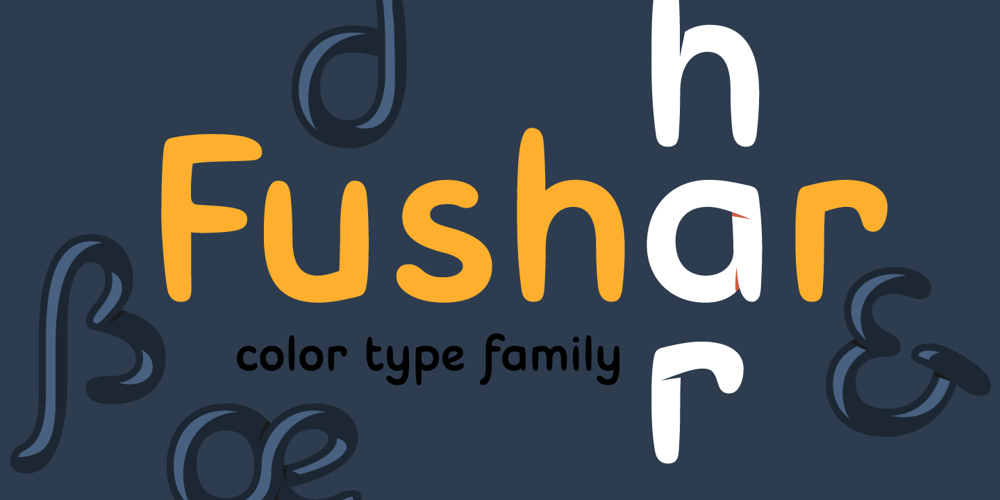
Fushar
Fushar font
Fushar Font Family was designed by Mikołaj Grabowski and published by Mikołaj Grabowski. Fushar contains 8 styles and family package options. Fushar is a bold comic color font family which comes in 5 layer-styles easy to compose in a multicolor manner and 3 OpenType-SVG color styles to make the work faster and easier. Character set covers Latin alphabet of European languages, Vietnamese and Pinyin with standard ligatures, digits, punctuation, currencies and other symbols – the total of 555 glyphs. The idea came from a custom logotype I made several years ago for a local charity organisation that helps children. The logotype was based on bold letters with light that make the “balloon” effect visible in “Holes” style. Later I expanded the family with “Cuts” and all the derivative fonts that make the whole color family. The purpose was to create a funny, friendly and playful script that would embrace the beauty of the Arabic script which is available in Fushar Arabic. The Latin character set is a useful addition and is available in multilingual bundles. Solid, Cuts and Holes are classic one-color styles which can be used separately to compose a simple text. With Shadows and Lights they can produce a multicolour design, as shown on the images above. To save the time, there are three already prepared combinations in the new OpenType-SVG color format. The features include contextual alternates, standard ligatures, fractions, ordinals, case-sensitive forms, proper mark attachment, superscript (1, 2, 3) & localizations.